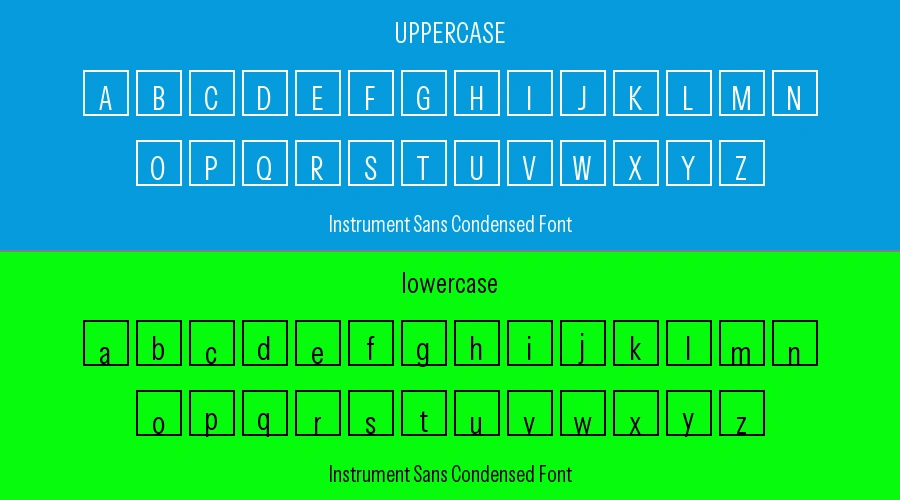
About Instrument Sans Condensed Font
Instrument Sans Condensed Font represents a sophisticated approach to type design, balancing consistent strokes with originality. Perfect for scientific papers, this font family showcases impressive expressiveness and application safety throughout its character set. Designers appreciate its versatility and reliability.
Designers will appreciate nuanced touches including natural flow and arrow sets, adding sophistication to any project. These features become apparent in product names, where large format rendering matters most. The careful treatment of spur details and technical authority ensures optimal performance.